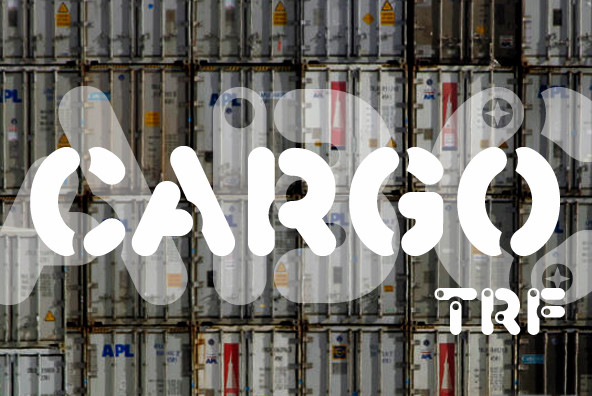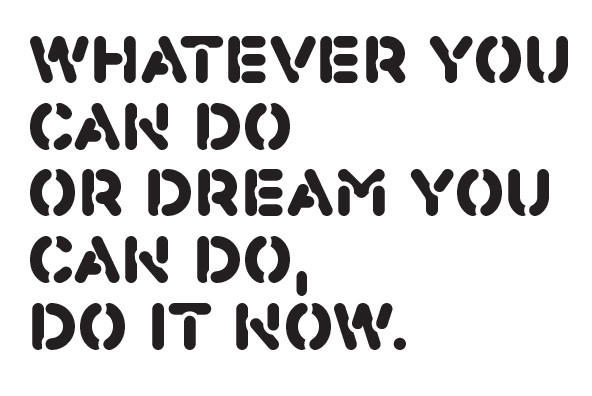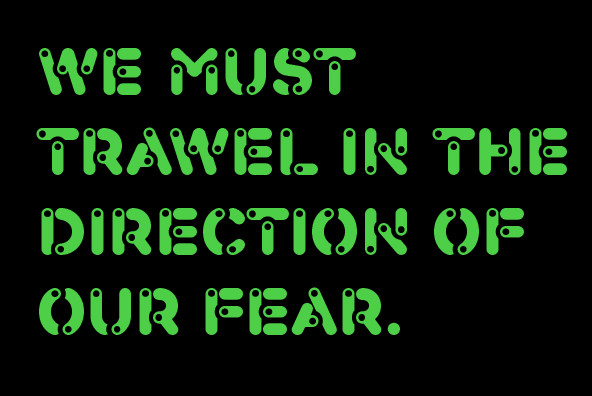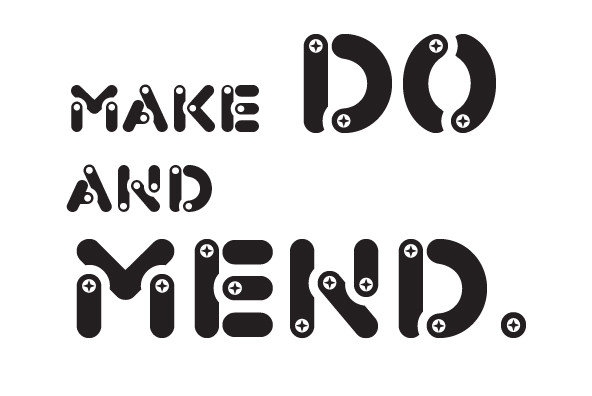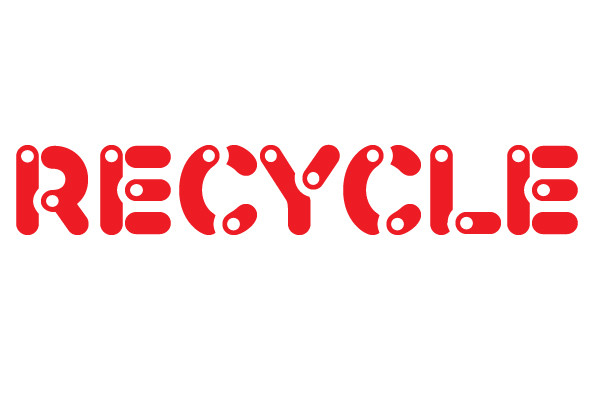
Cargo TRF is a revision of existing Cargo typeface dated 2001. New Cargo consists of three styles - A (plain), B (punch-out holes) and C (screw heads). Cargo TRF is recommended for use in big sizes as a display typeface.